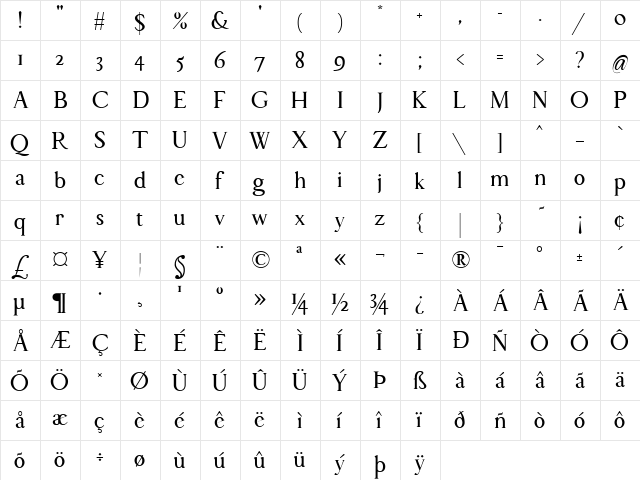
Monteros Regular
| Foundry | David Espinosa - Type Sailor |
| Designer | Type Sailor |
Design Context for Monteros Typeface
Monteros is a composed and adaptable typeface that performs quietly and consistently across a wide range of design contexts.